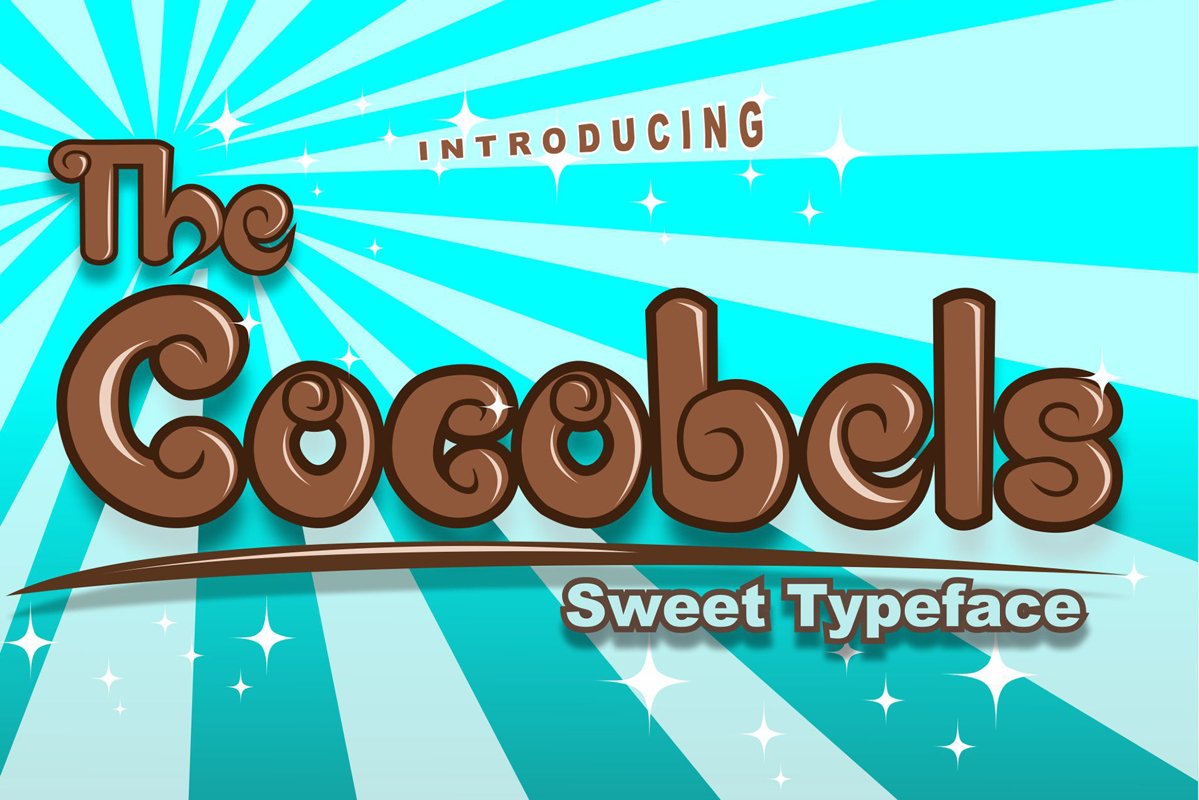
Cocobels
Cocobels bold
Cocobels
Cocobels is a Sweet display typeface inspired by the sweetness of Chocolate. Awesome for logotype, branding, packaging and more design needs